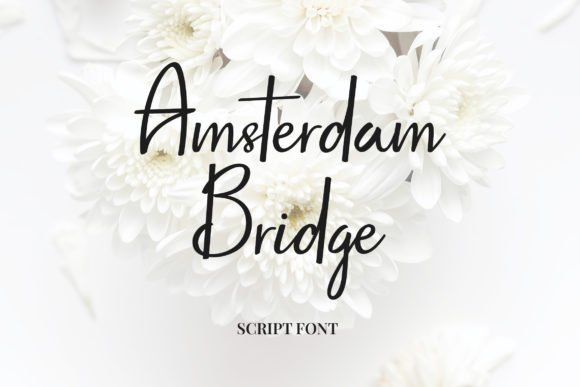
The Perfect Script for Your Next Design
As a designer, there’s nothing quite like the rush of creativity that comes with finding the perfect font for your next project. Remember that moment when you stumbled upon a font that seemed to bring your design to life? For me, it was when I discovered the Amsterdam Bridge Font – a cursive and classic script font that has since become a staple in my design arsenal.
Amsterdam Bridge Font is more than just a pretty face; it’s a versatile tool that’s perfect for fashion branding, editorial designs, and so much more. With its smooth curves and elegant feel, this font is sure to elevate your projects to the next level. Whether you’re a seasoned designer or just starting out, adding Amsterdam Bridge Font to your toolkit is a decision you won’t regret.
Amsterdam Bridge Font Key Features
• Unique Characteristics: This font features a distinctive, hand-drawn design with subtle nuances that evoke the charm of traditional typography.
Amsterdam Bridge Font Review
Overall, I’m impressed with the Amsterdam Bridge Font. Here’s what I like about it:
• ✨ Unique and creative design: The font has a distinctive, hand-drawn feel that sets it apart from more traditional serif fonts.
• ✨ Versatility: Amsterdam Bridge Font works well for both body text and display headings, making it a great choice for a wide range of projects.
• ✨ Beautiful details: The font’s intricate details, such as the flowing curves and subtle flourishes, add a touch of elegance and sophistication.
• ⚠️ Readability: While the font is visually striking, it can be challenging to read at smaller sizes or in certain contexts, such as in small print or on low-resolution screens.
• ⚠️ Limited language support: Amsterdam Bridge Font may not be optimized for non-Latin scripts or languages, which could limit its use in certain projects.
• ⚠️ Customization: While the font has some customization options, it may not be as flexible as some other fonts in terms of adjusting weight, width, and other parameters.
Overall, I think Amsterdam Bridge Font is a great choice for designers looking for a unique and creative font that can add a touch of personality to their projects. With some careful consideration of its limitations, it can be a valuable addition to any design toolkit.
Tips for Getting the Most Out of Amsterdam Bridge Font
Here are some tips to help you get the most out of Amsterdam Bridge Font:
• Use Amsterdam Bridge Font for headings and titles to add a touch of elegance to